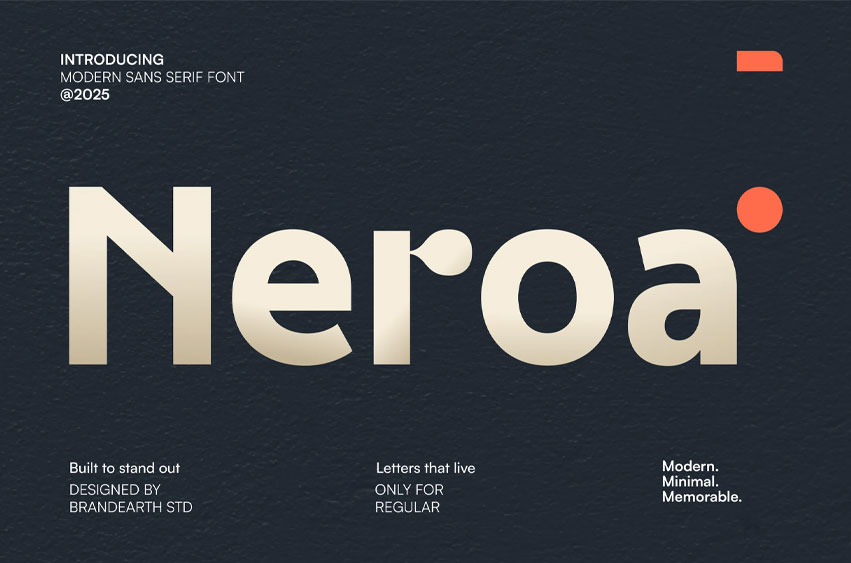
Neroa Font is a geometric sans serif font featuring clean, modern letterforms with uppercase and lowercase characters, ligatures, stylistic alternates, and multilingual support. Designed for clarity and versatility, it is suitable for editorial layouts, product packaging, UI/UX design, logo design, minimalist compositions, fashion branding, bold headlines, web interfaces, mobile apps, startup presentations, advertising, signage, digital banners, and display typography in both print and digital formats.
• Ligatures & Alternate
Suitable For: tech branding, editorial titles, logo design, minimalist layouts, identity, product packaging, UI/UX design, bold headlines, clean web design, creative portfolios, luxury branding, mobile apps, startup decks, social graphics, advertising, geometric visuals, digital banners, signage design, display typography, trend campaigns.